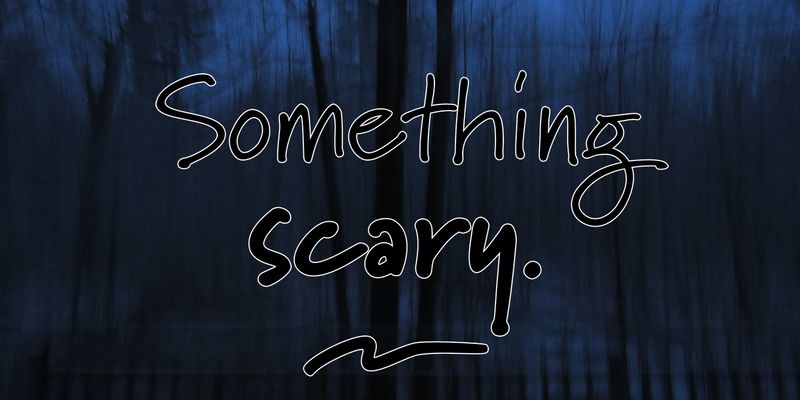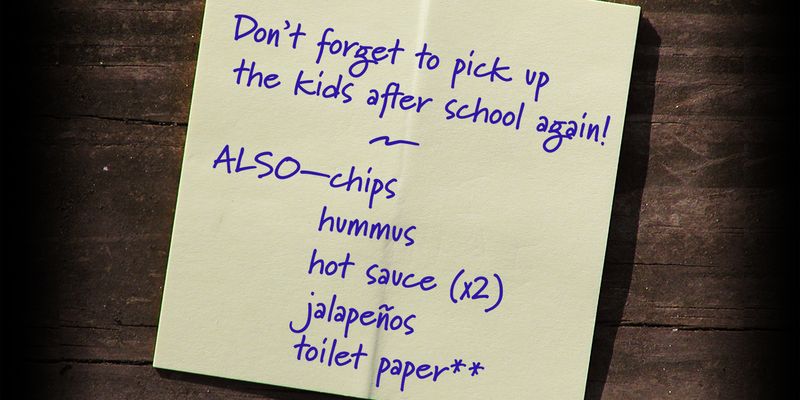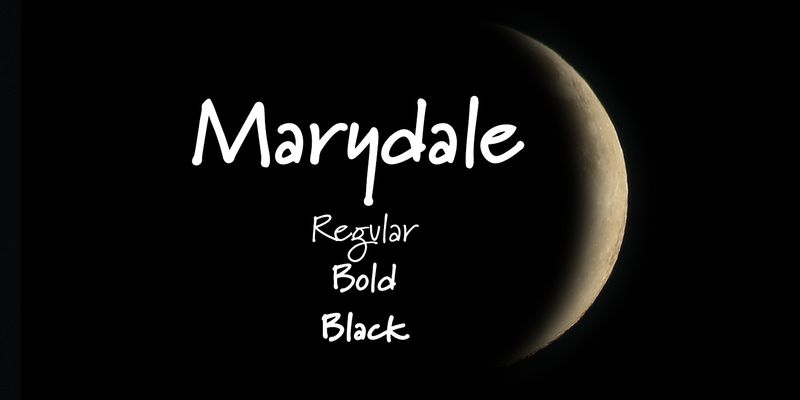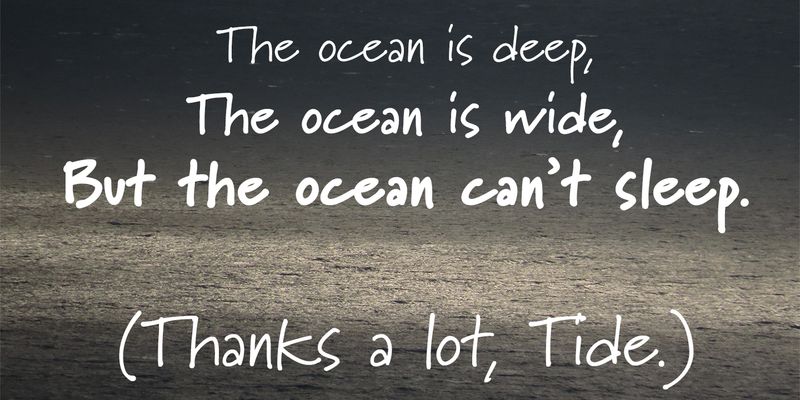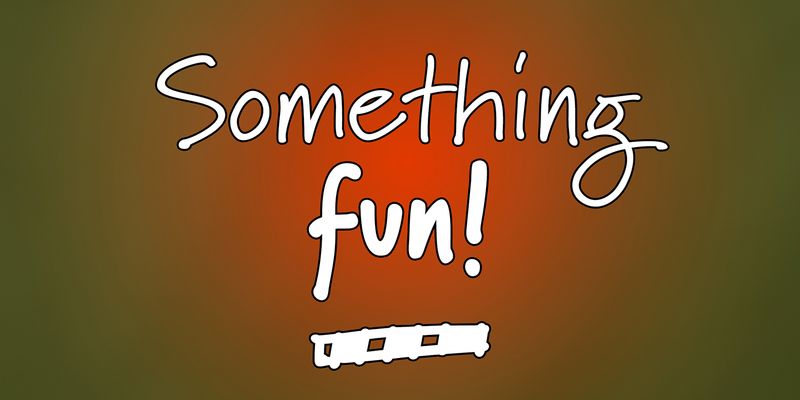
Marydale™ is a personable, accessible, casual handlettering font with Regular, Bold, and Black weights. It’s also got true small caps, numerous ligatures, stylistic alternates, and Cyrillic support.